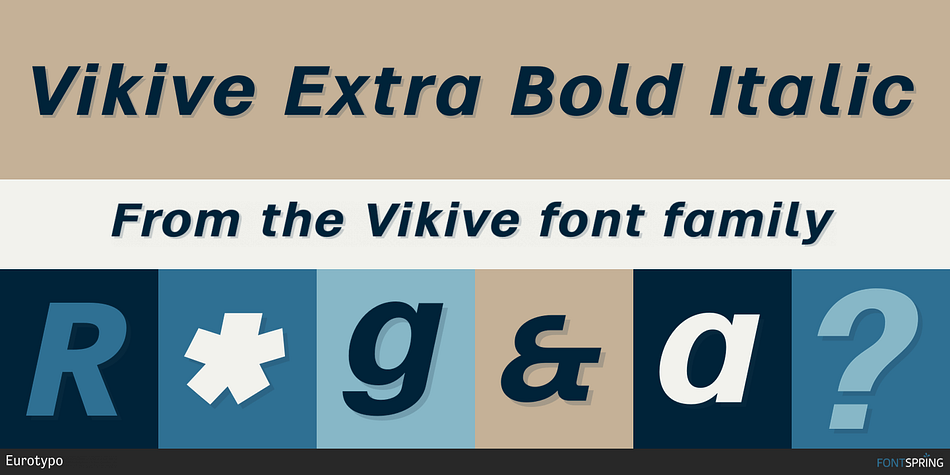
Vikive Extra Bold Italic
Designed by Olcar Alcaide, Vikive is a sans serif font family. This typeface has thirty styles and was published by Eurotypo.
Vikive is a family of Sans Serif fonts, better known in its origins as as Gothic in America or Grotesque in Europe. Some authors divide them into three categories: Grotesque, Geometric and Humanistic. Probably, it can be defined that Vikive has some characteristics of the first two: Grotesque and Geometric, high x-height, slight squareness of the curves, wide set, open tail, simple construction.
The family concept provides several weights and widths for one face and its matching italics, therefore this family of types is more suitable for text settings, enriched with strong contrast fonts (condensed thin or expanded black) for headlines.